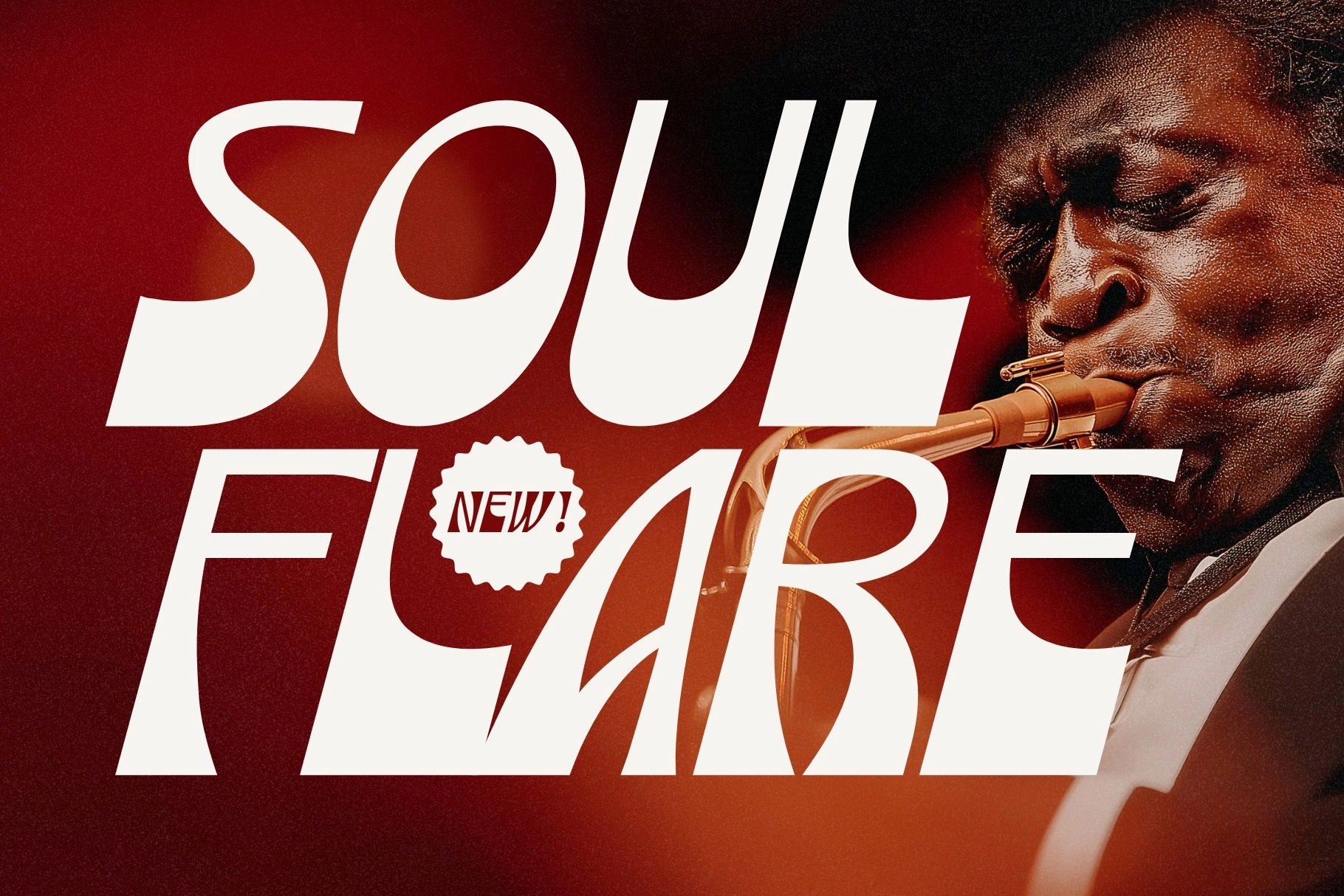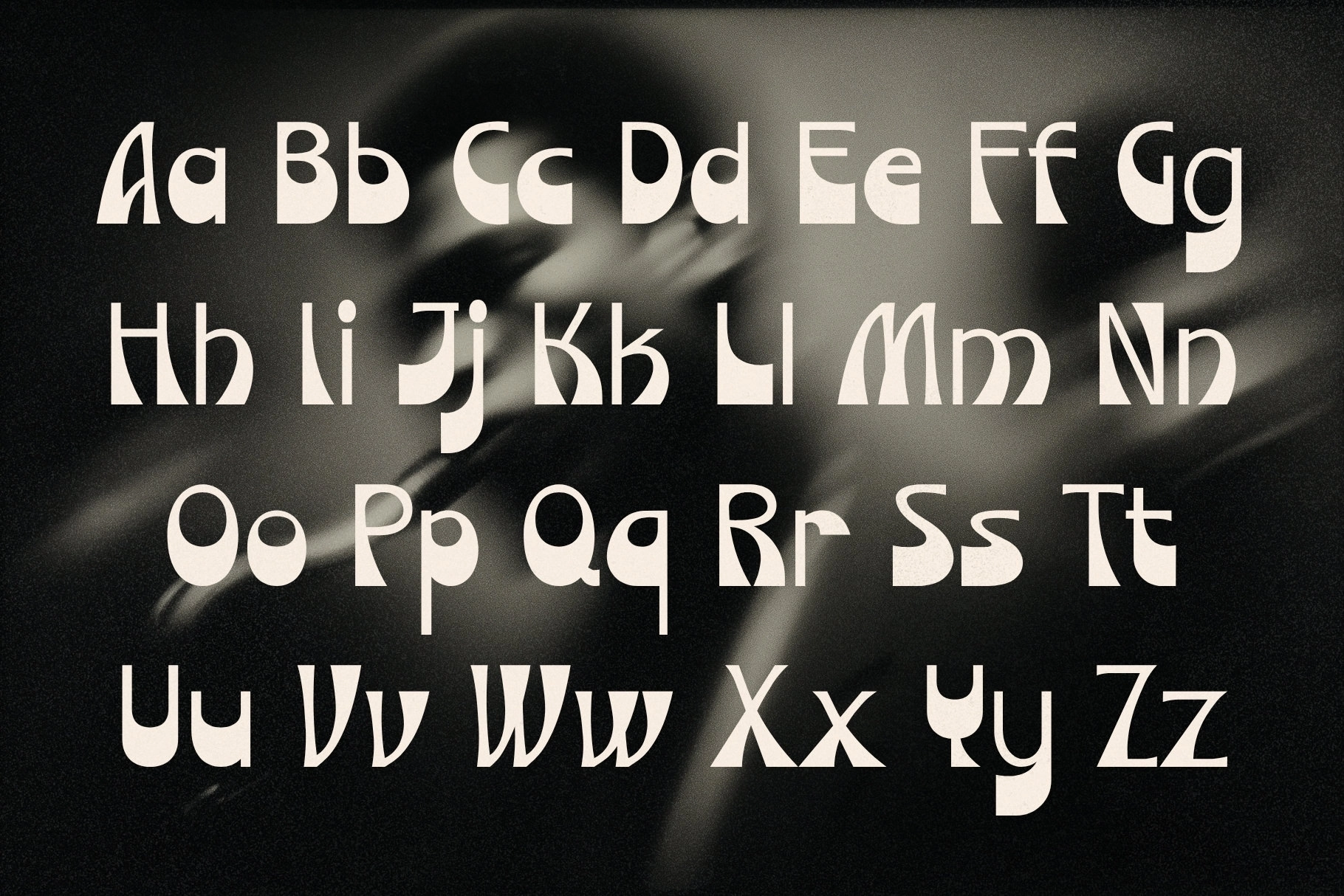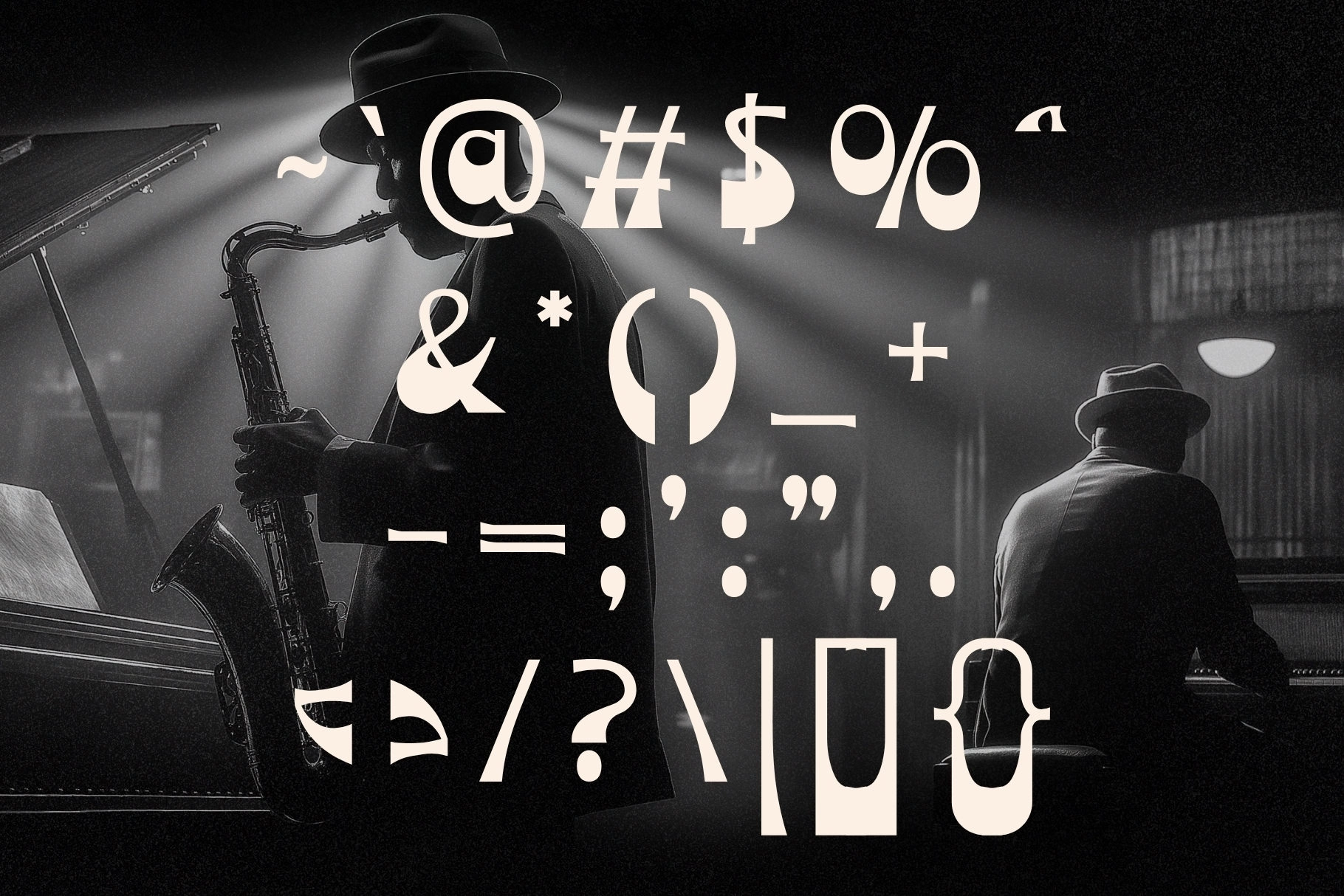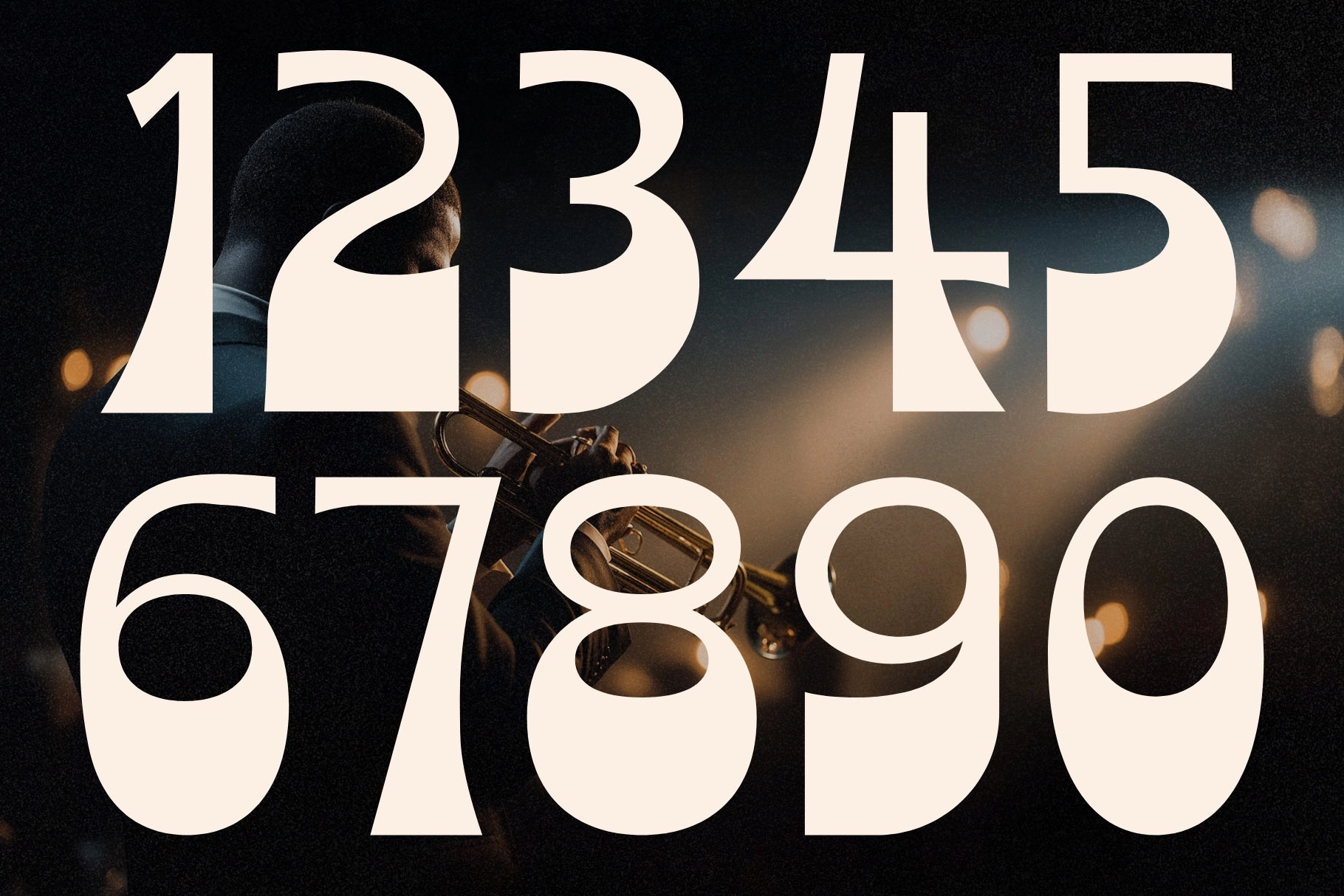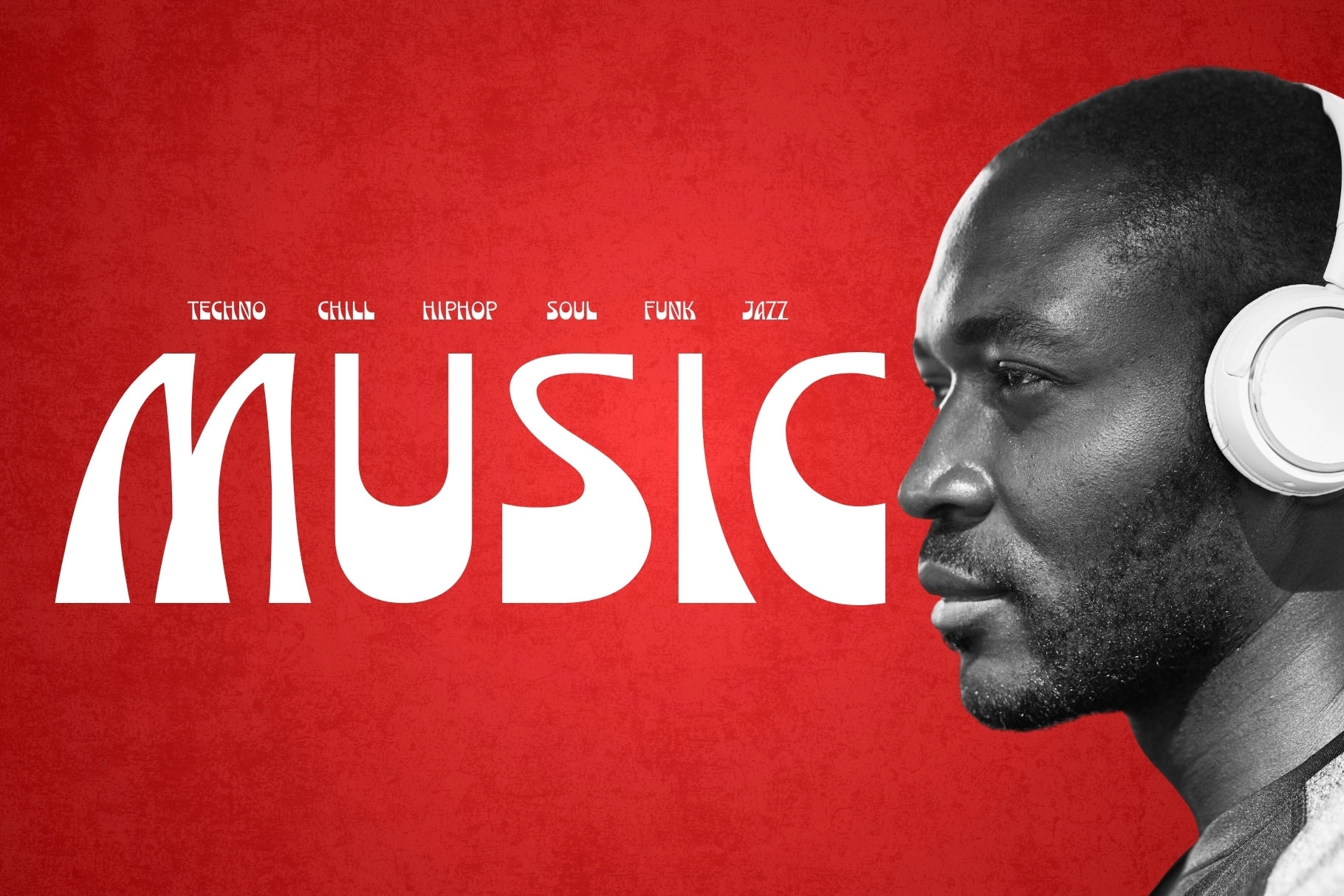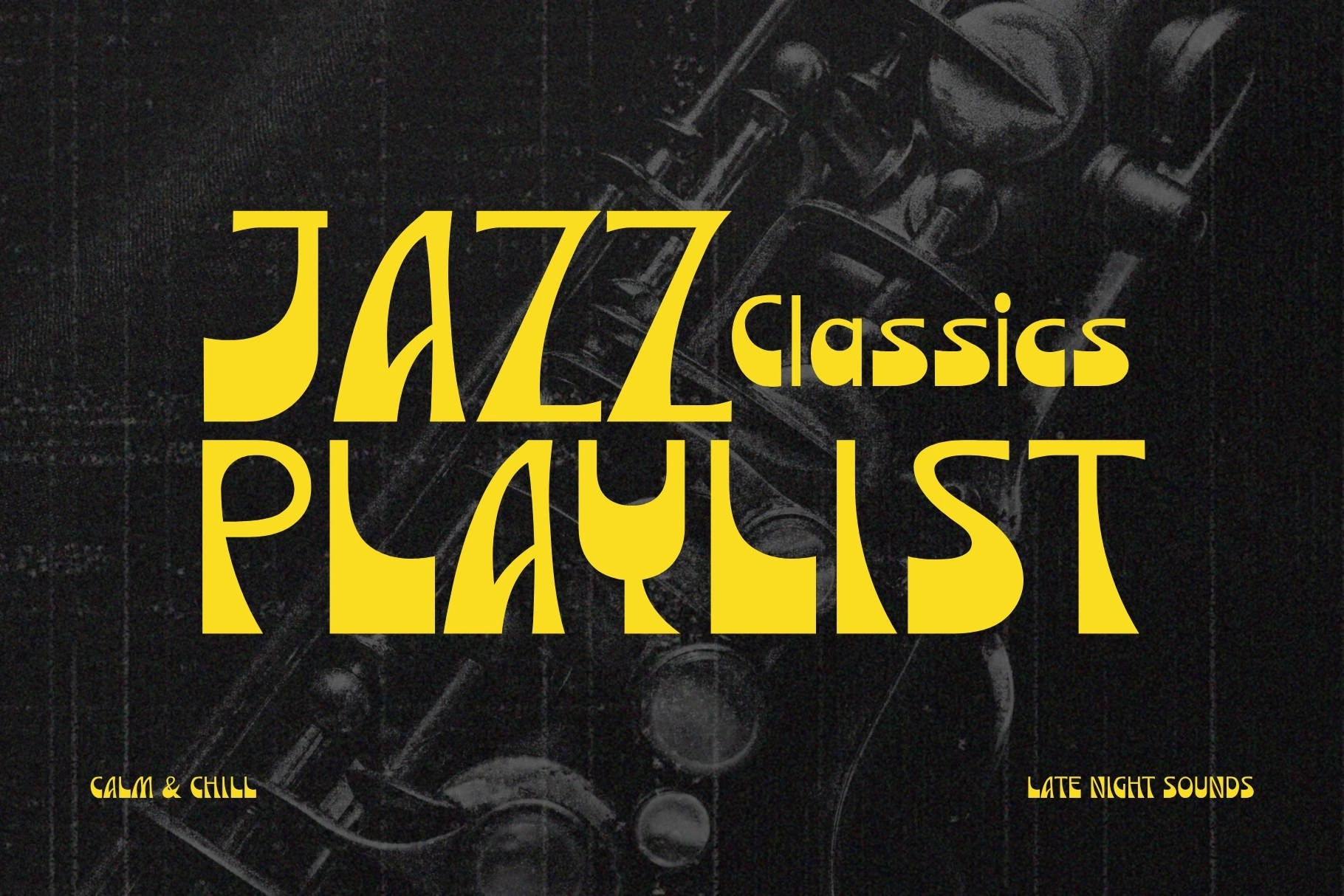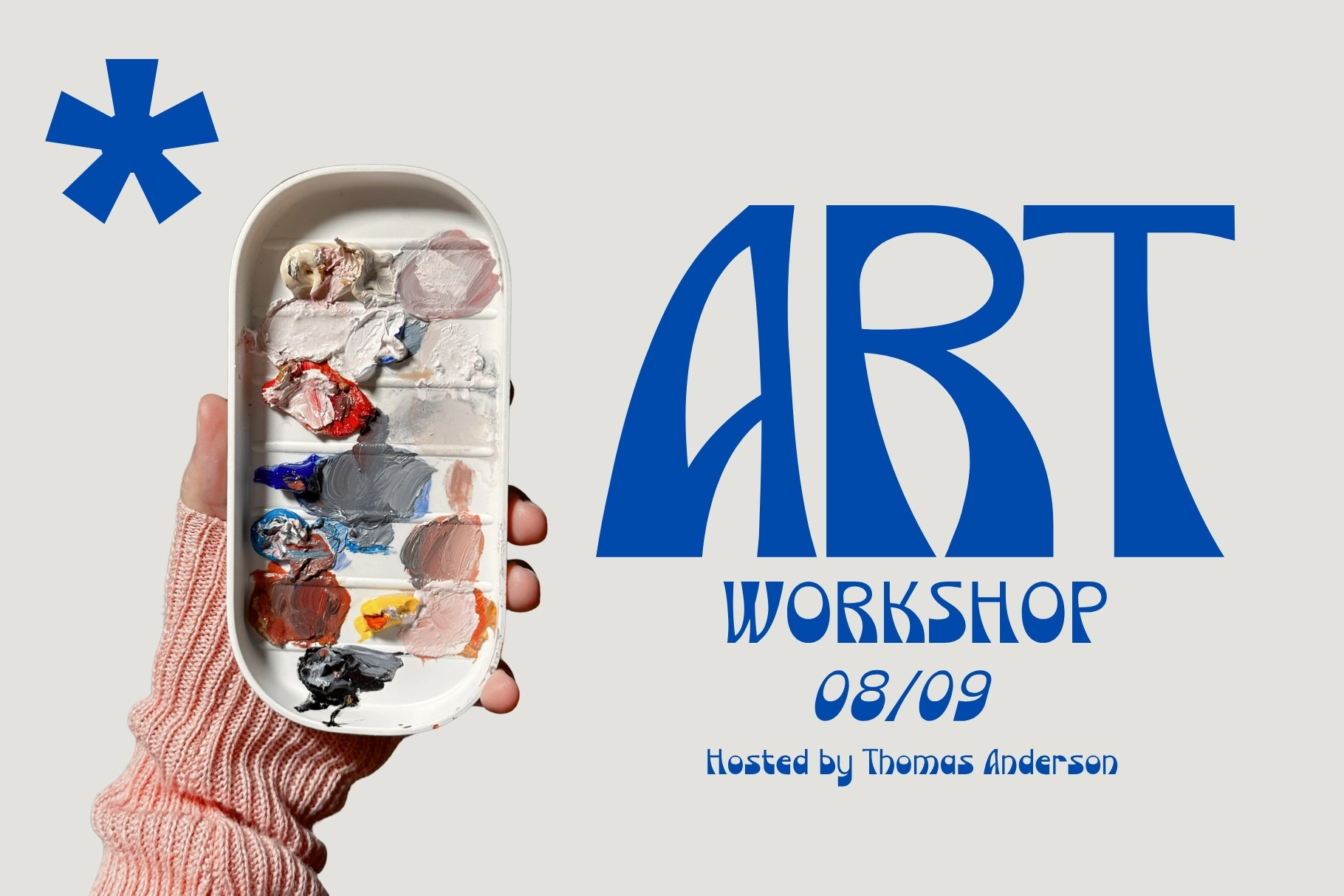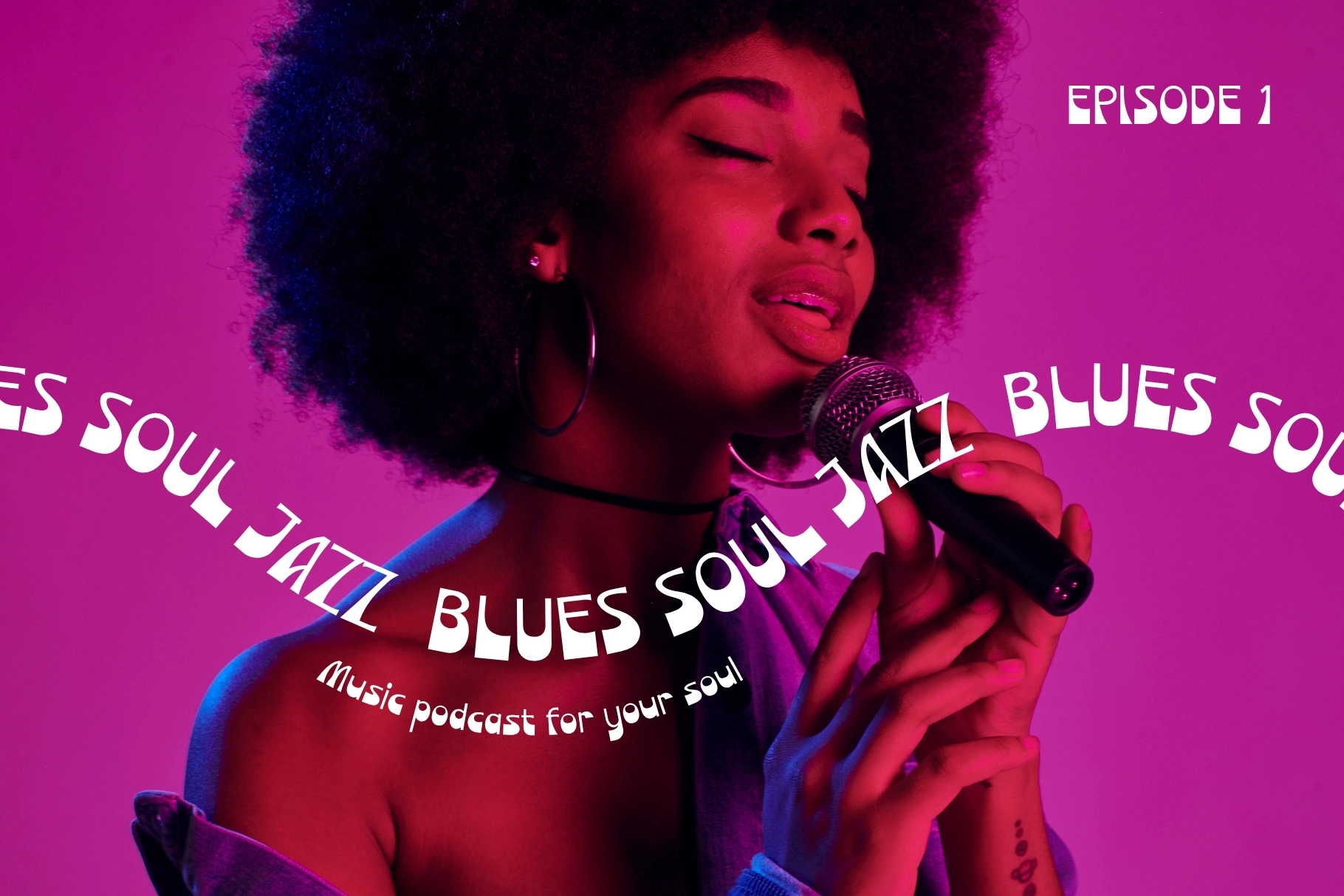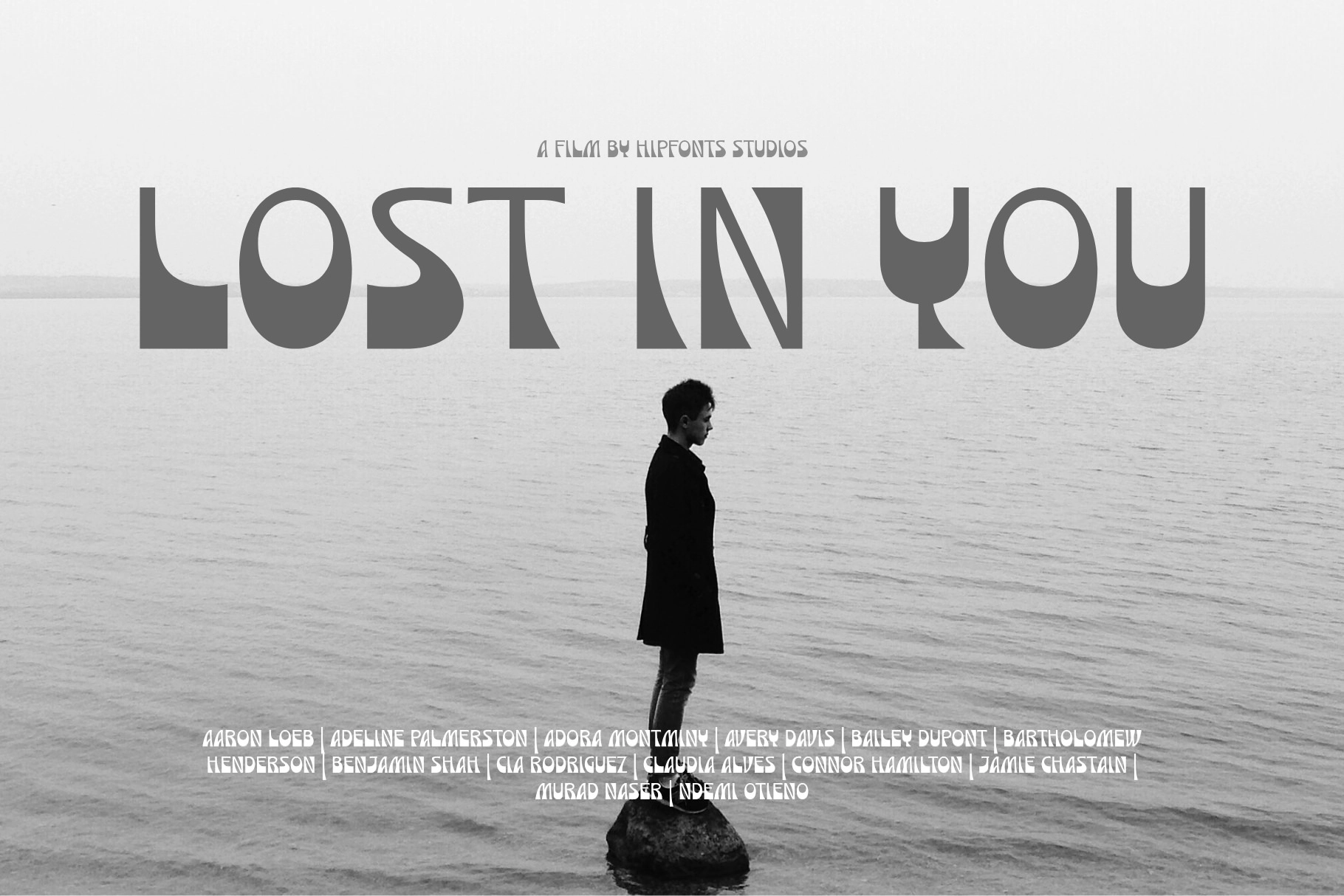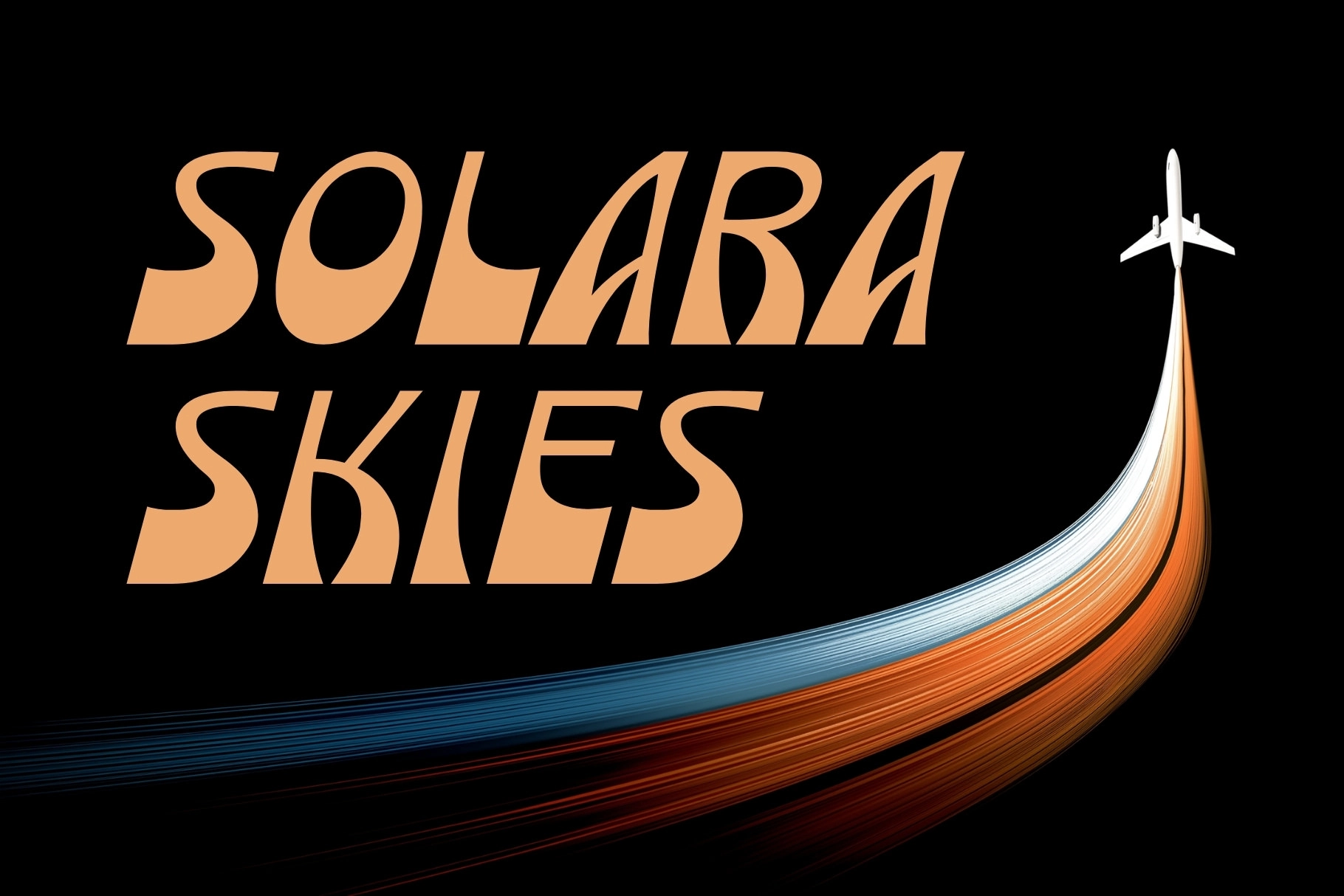
Soul Flare - Groovy Jazz Font
This retro display font brings wide, sculptural letterforms, high-contrast curves, and sharp cut-ins with a smooth jazz-poster attitude. Its bold shapes are expressive and graphic, shifting easily from clean headline work to cinematic layouts with a little midnight brass section in the background.
Soul Flare works well for album covers, music festival posters, jazz club branding, movie titles, art workshop graphics, editorial headlines, packaging, event flyers, fashion campaigns, advertising layouts, logo design, social media visuals, and more. The Regular style gives layouts a strong, stable voice, while the Italic style adds speed, swing, and a sharper sense of motion.